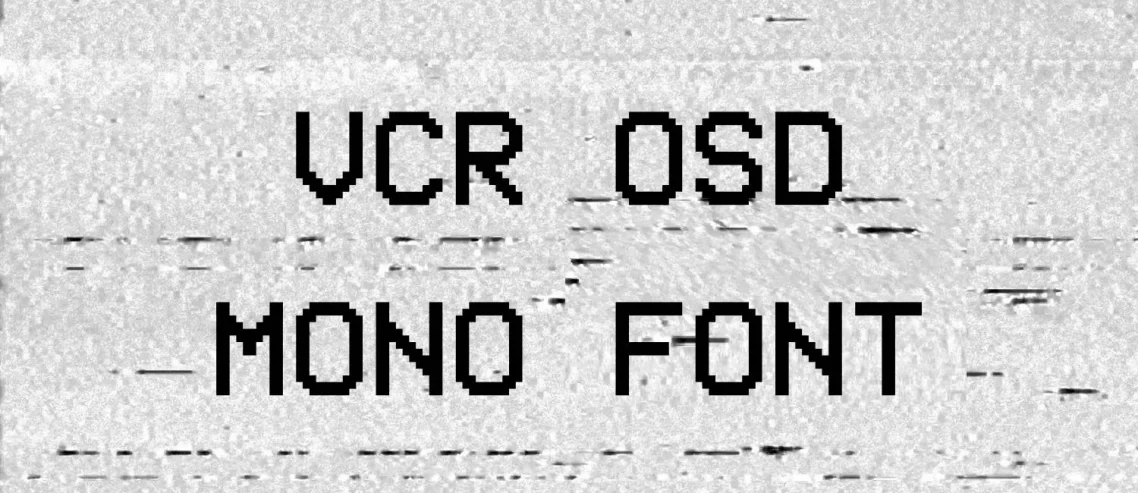
Vcr Osd Mono is an elegant and stunning font with a great look and unusual textual appearance. This typeface character looks like a pixelated texture. The typeface belongs to a display typeface that was designed by Riciery Leal.